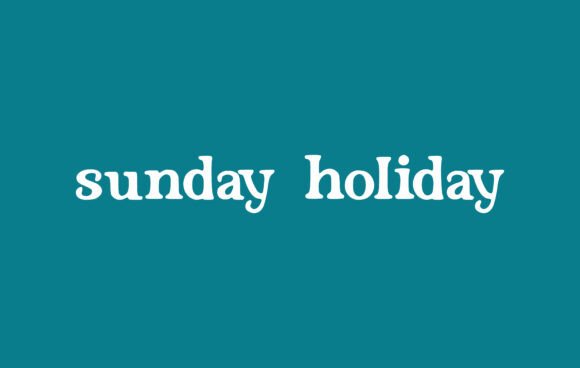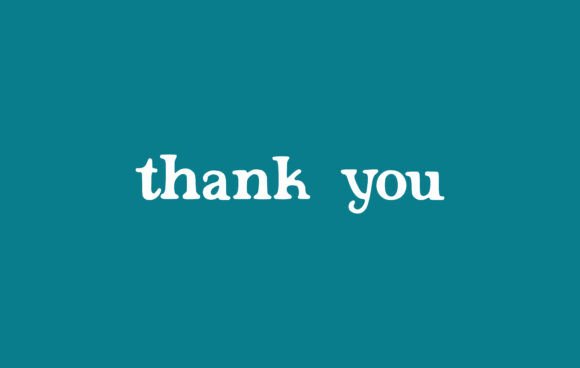
Introduction to Smithy Font
As a designer, you know the rush of excitement that comes with finding the perfect font for your next creative project. The moment when all the elements come together, and your vision starts to take shape – it’s a feeling like no other. And for those who’ve been on the hunt for a font that exudes romance and elegance, we’re excited to introduce you to the Smithy Font.
This beautiful, authentic handwritten font is more than just a pretty face – it’s a valuable design resource that can elevate your work to new heights. With its legibility and versatility, it’s perfect for everything from magazine headlines to social media posts, wedding invitations, and even branding. And the best part? It’s available for free download, so you can get creative without breaking the bank.
Key Features of Smithy Font
- Perfect for designers seeking a unique and professional touch for their creative projects, including logos, graphics, and more.
Honest Review: Smithy Font
I recently stumbled upon the Smithy Font while searching for a free download to enhance my design project. As a designer, I’m always on the lookout for high-quality design resources that can elevate my creative work.
Here’s what works well with the Smithy Font: ✨ It’s incredibly versatile and can be used for a wide range of projects, from logos to typography-based designs. The font is also available for free download, which is a huge bonus for designers working on a tight budget. Additionally, the font has a transparent background, making it easy to layer and combine with other design elements.
- Wide range of project applications
However, there are a few limitations to consider: ⚠️ The font may not be suitable for use in small text sizes, as it can become difficult to read. Additionally, the font’s versatility can sometimes make it feel a bit generic, so be sure to pair it with other design elements to add some personality to your project.
Overall, I’m impressed with the Smithy Font and would definitely recommend it as a design resource. With its high-quality design, free download option, and transparent background, it’s a great choice for designers working on a variety of creative projects.
Tips for Getting the Most Out of Smithy Font
Use the Smithy Font for headings and titles to add a touch of sophistication to your design. Experiment with different font sizes and styles to create visual interest. You can also use the font in combination with other design elements to create a cohesive look.
The Smithy Font is perfect for a variety of creative projects, including logos, brochures, and business cards. It’s also great for use in social media graphics, presentations, and marketing materials.